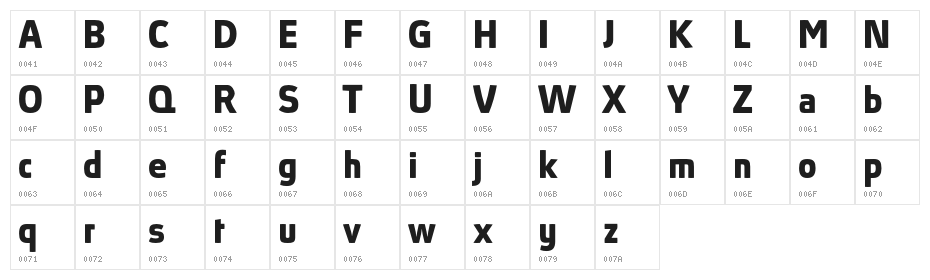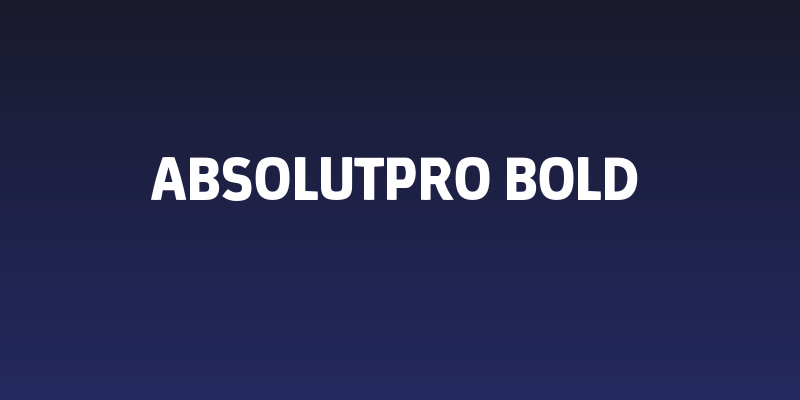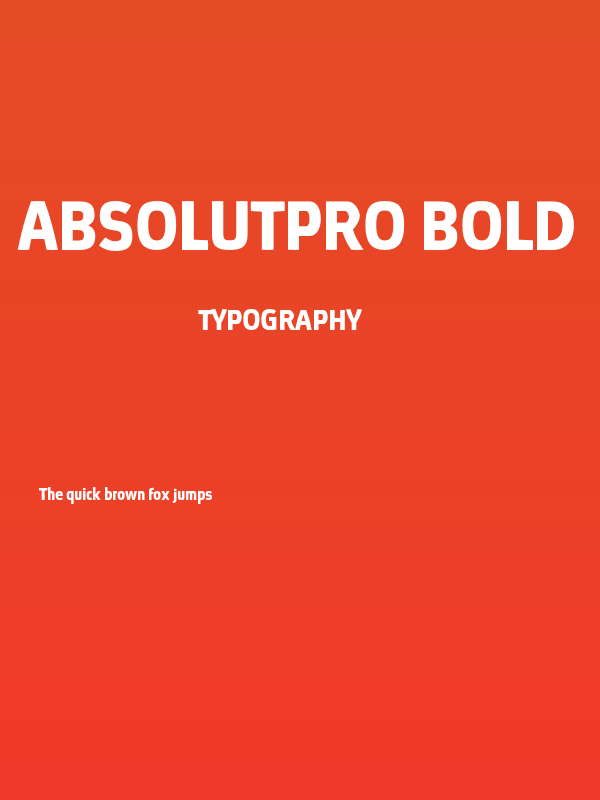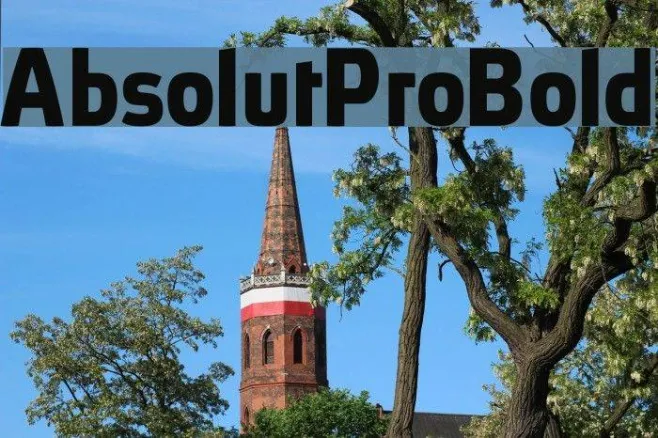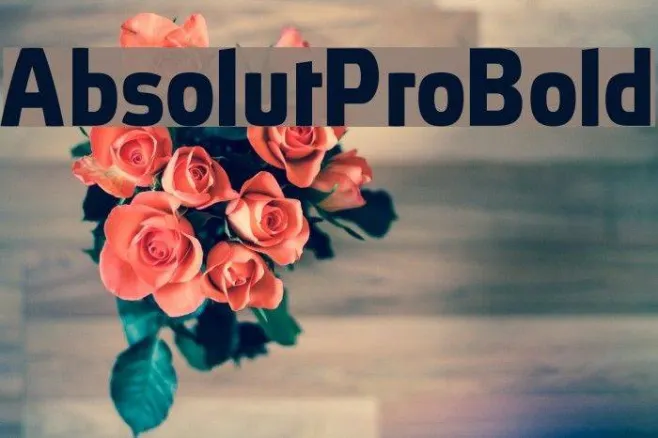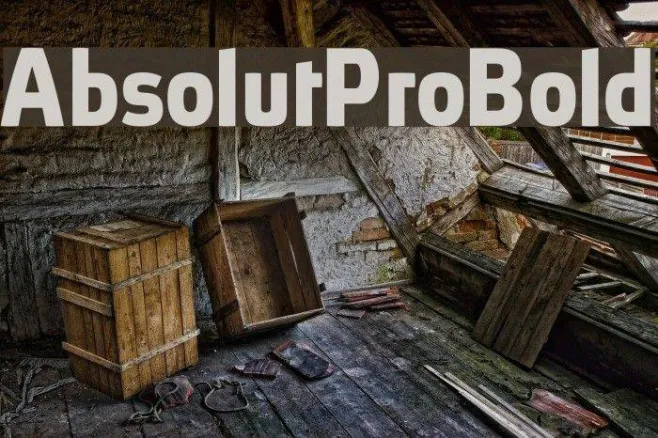
AbsolutPro-Bold Font
AbsolutPro-Bold Description
This font features a bold and robust design, characterized by its thick strokes and strong presence. The letters are sans-serif, offering a clean and modern appearance. The uppercase and lowercase characters maintain a consistent weight, providing a uniform look across the text. The font's design is straightforward, with minimal decorative elements, making it highly legible and suitable for various applications. The numerals and special characters are designed to match the overall boldness, ensuring coherence throughout. Its simplicity and strength make it versatile for both digital and print media.
| Proposed Projects | Ideal for branding, advertising, headlines, and digital media where a strong, modern presence is needed. |